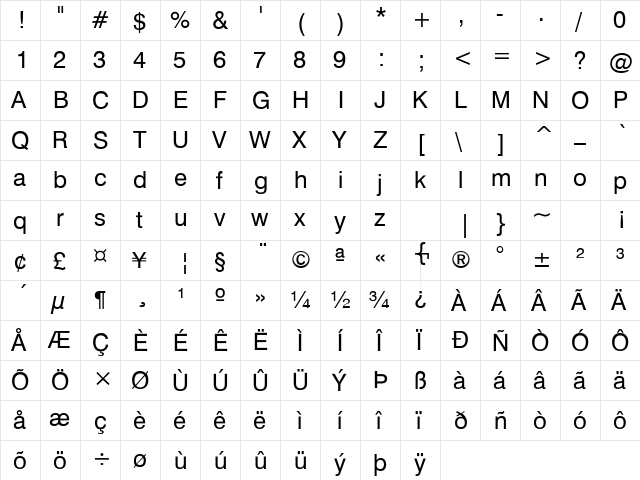
Hailsten Regular
Design Context for Hailsten Typeface
Hailsten offers clean, dependable letterforms without strong stylistic allegiance, making it a practical choice for designers who need flexibility.
Pro Tip: Use Hailsten in both headline and body roles to test its range before committing to a single application.